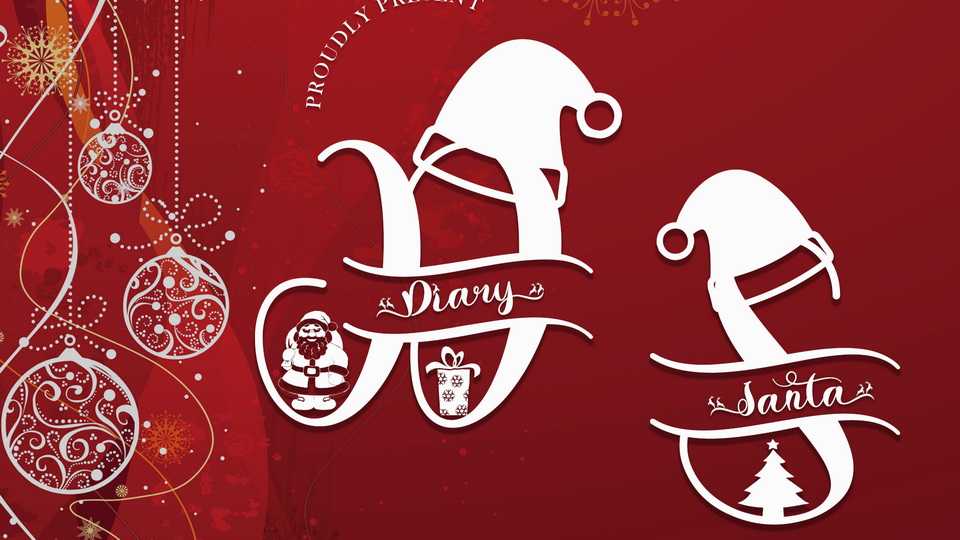
Diary Santa Monogram Font › Fontesk
Download Diary Santa Monogram font, a very beautiful and unique Christmas monogram typeface. Diary Santa Monogram font has a beautiful decoration and equipped with Christmas tree decorations, gifts, hats, and also a reindeer.